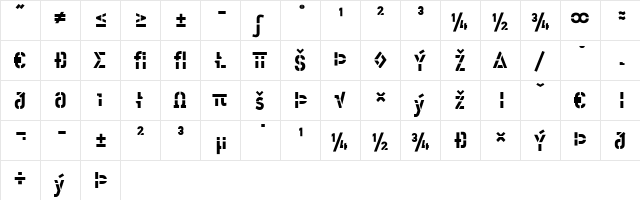
Offline-BoldExpert Bold
Design Context for Offline-BoldExpert Typeface
Offline-BoldExpert takes a measured approach to typography — its balanced proportions and neutral character make it a reliable workhorse for both digital and print work. Its bold stroke weight gives it real presence on the page.